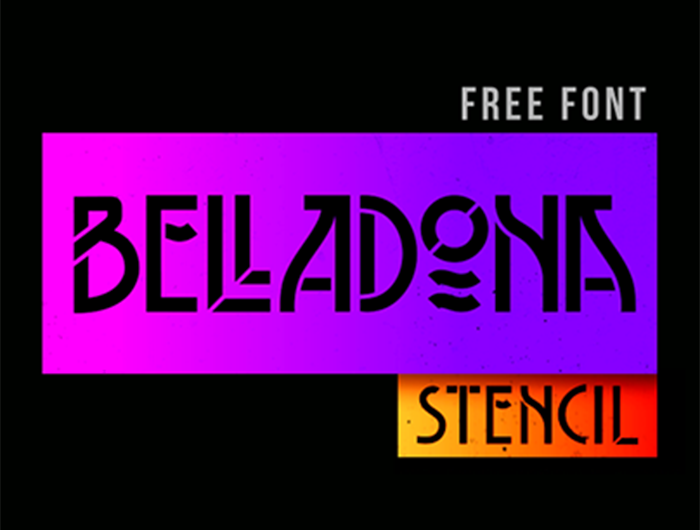
Belladona Stencil Typeface
Hello there Lettering Lovers! I am so happy to be introduced to you this typeface. If you are looking for an elegant typography then this is a good choice. Introducing Belladona Stencil Typeface! Belladona Stencil designed and shared by Tano Veron. BELLADONA STENCIL is the urban version, a lover of hip hop & street art. Ideal for logos, handwritten quotes, product packaging, header, poster, merchandise, social media & greeting cards.